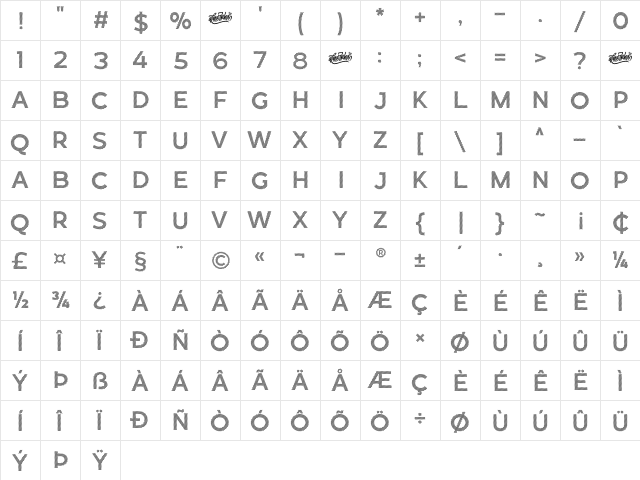
Revoxa Strip Regular
Regular ·  Almarkhatype 2020 - Malik Wisnu - Adriansyah ·
DesignerAlmarkhatype 2020 - Malik Wisnu - Adriansyah
Design Context for Revoxa Strip Typeface
Revoxa Strip takes a measured approach to typography — its balanced proportions and neutral character make it a reliable workhorse for both digital and print work.